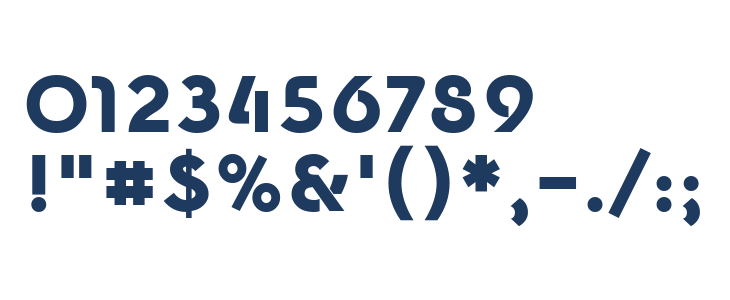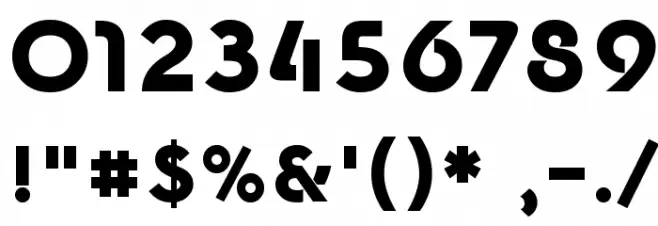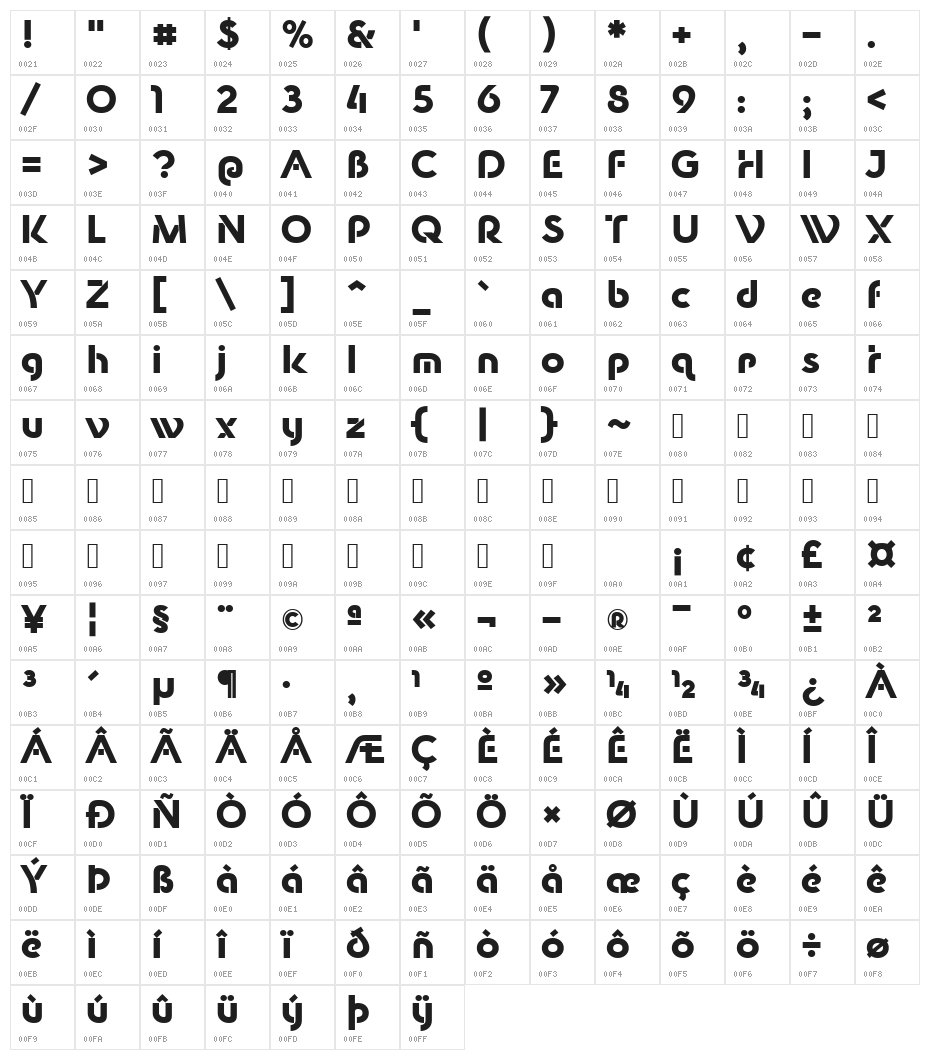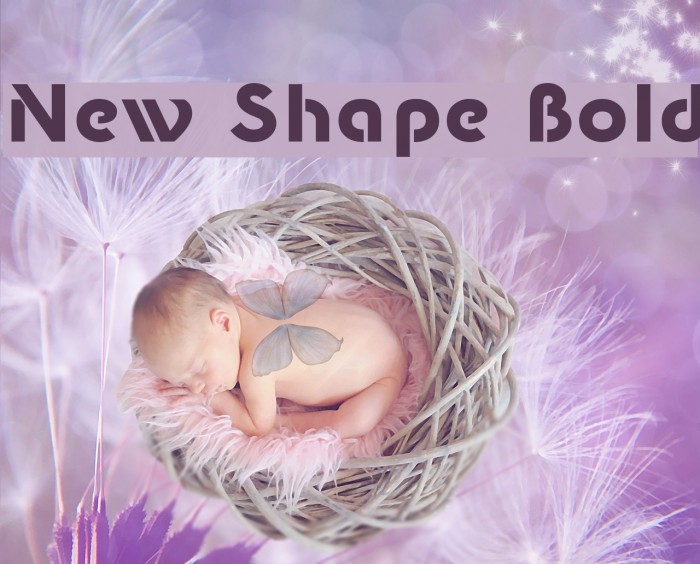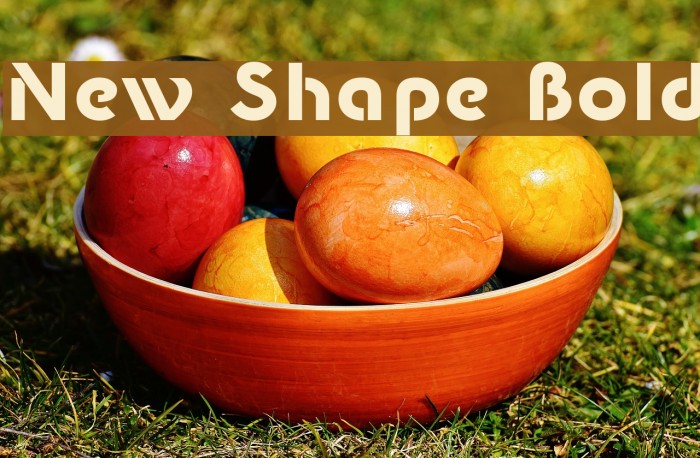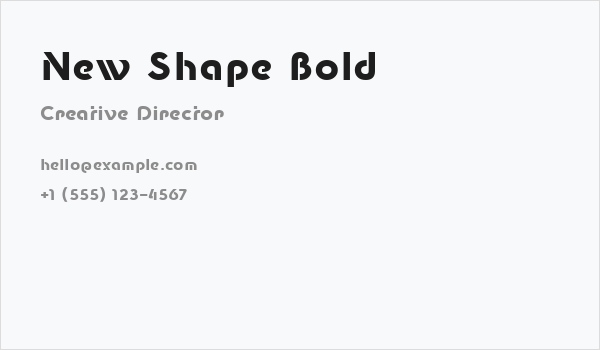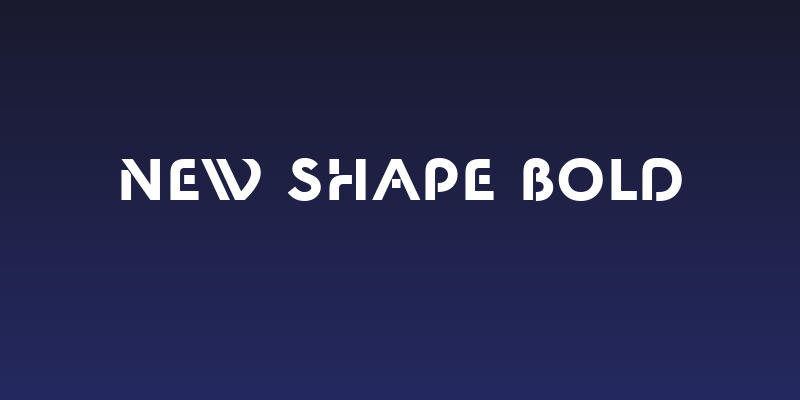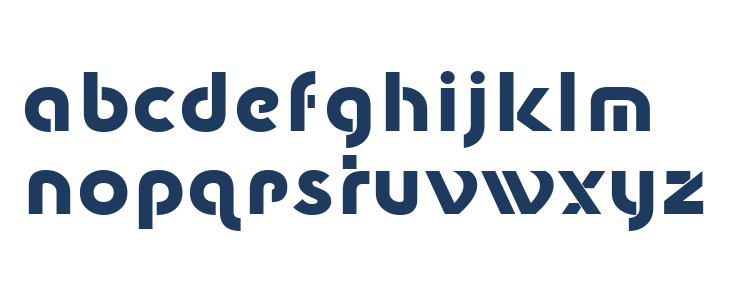
New Shape Bold Font
New Shape Bold Description
This font exhibits a bold and geometric style with a modern flair. The characters are crafted with a strong emphasis on angular shapes and clean lines, giving it a distinct and assertive appearance. The uppercase letters are particularly striking, featuring sharp edges and a uniform thickness that conveys a sense of stability and strength. The lowercase letters maintain the geometric theme, with rounded elements that add a touch of softness to the overall design. The numerals are consistent with the bold aesthetic, ensuring readability and visual impact. Special characters are well-integrated, maintaining the font's cohesive look.